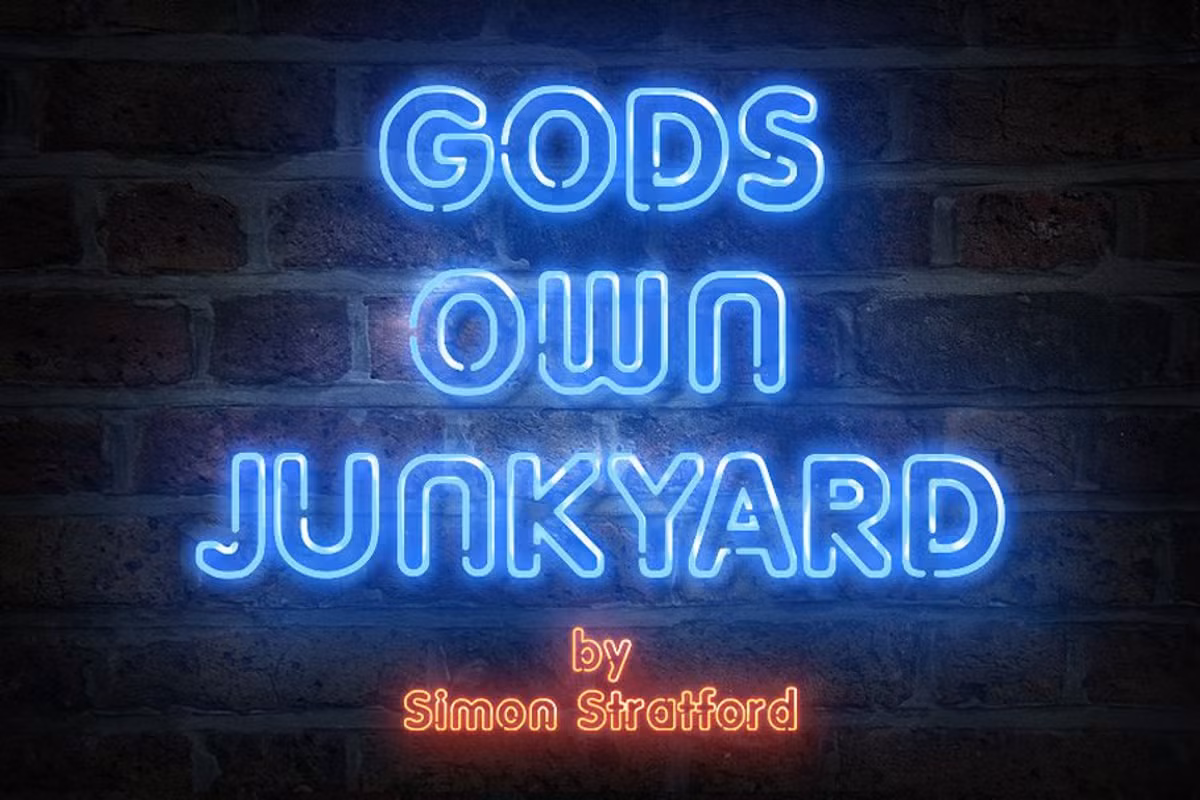
Please note, you must purchase this font for commercial use. However, you can easily download Neon Font Display Typeface Free Download for personal use and testing purposes. Neon Font Display Typeface is a bold and futuristic font designed to emulate the look of neon lights, perfect for projects that need an eye-catching and vibrant aesthetic. Ideal for signage, posters, logos, social media graphics, and event promotions, this font gives your designs a striking, illuminated appearance. Whether you're working on a nightlife brand, music event posters, or creative digital content, Neon Font Display Typeface Free Download adds a lively and modern touch to your typography. Download Neon Font Display Typeface Free Download today and explore its potential before opting for a commercial license.